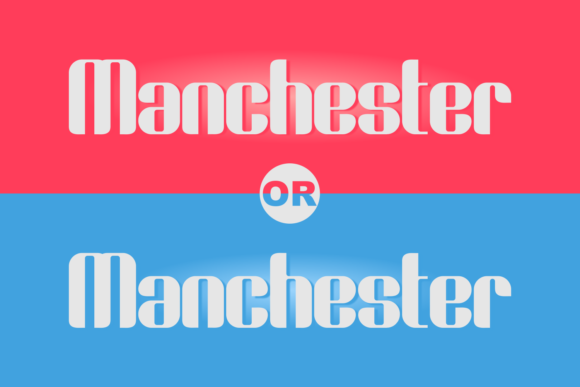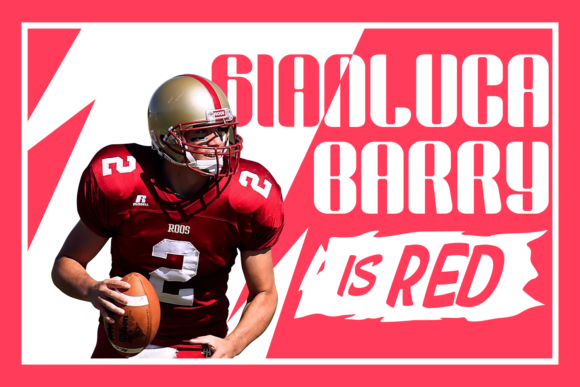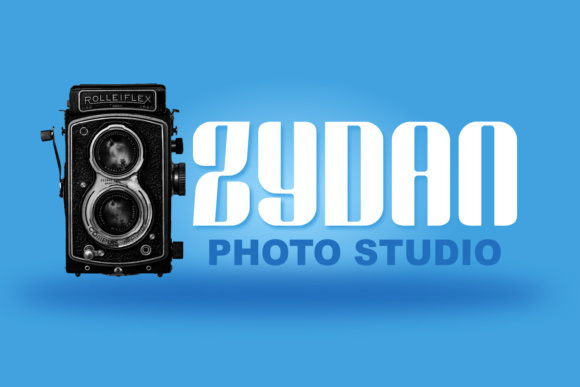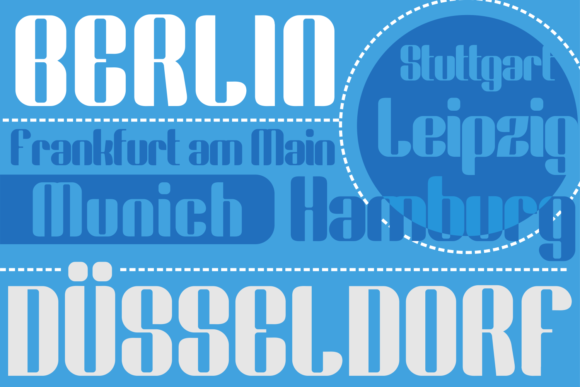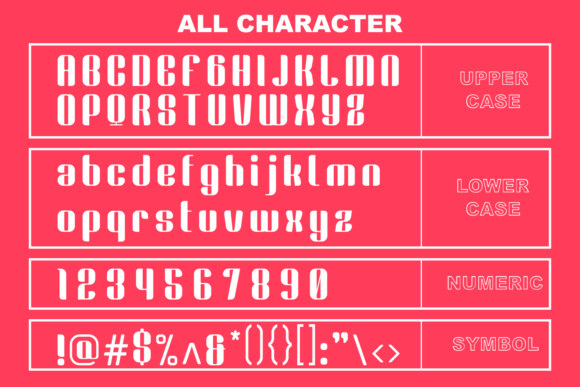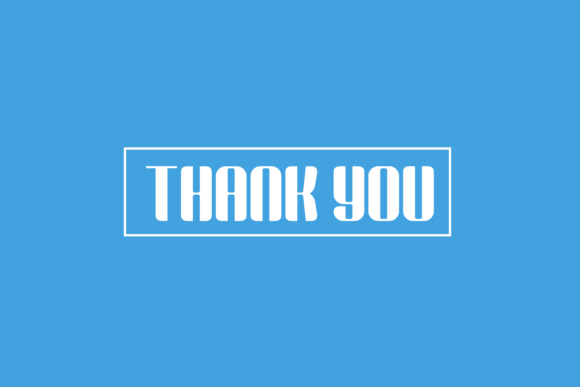
Ocean Diary Font – Free Download
Introduction to Ocean Diary Font
Ocean Diary is a cool and trendy display font.
| 👤 Author | Forberas Club |
This adaptable font will look great on a variety of design ideas It will add a fun and friendly touch to each of your projects.
Key Features of Ocean Diary Font
Why Choose Ocean Diary Font?